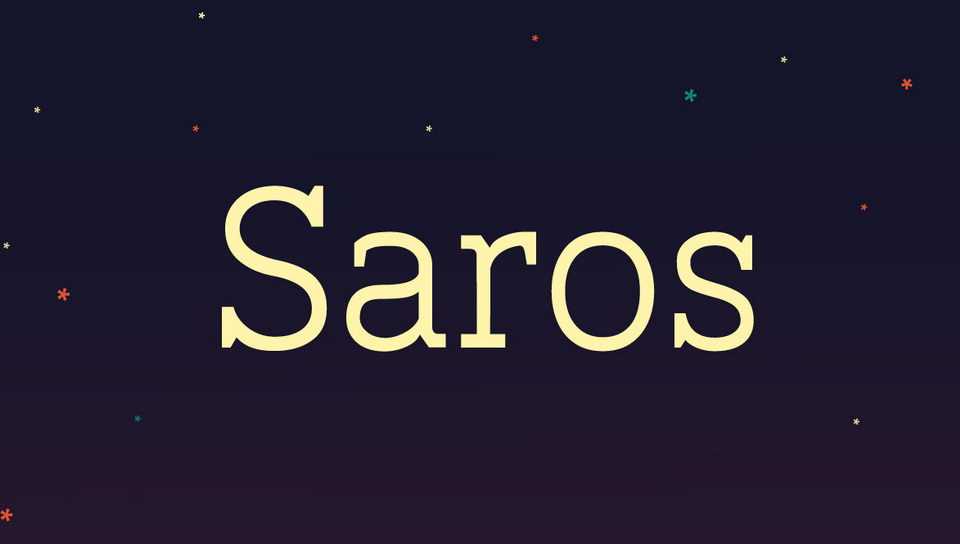
Download Saros font, a flexible slab serif typeface amis to project reliability and personality for type on print and screen. Saros is constructed dimentionally, offering striking forms at display sizes and consistent readability in very small sizes.